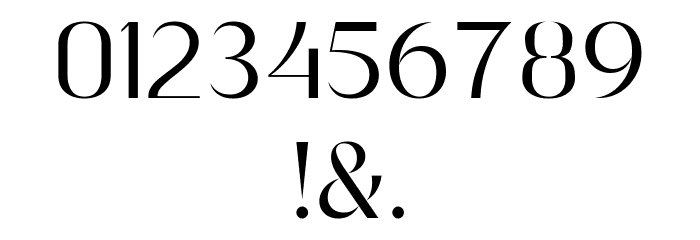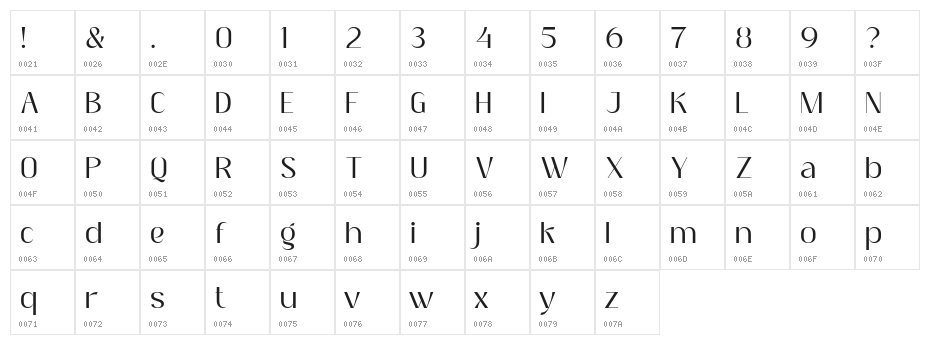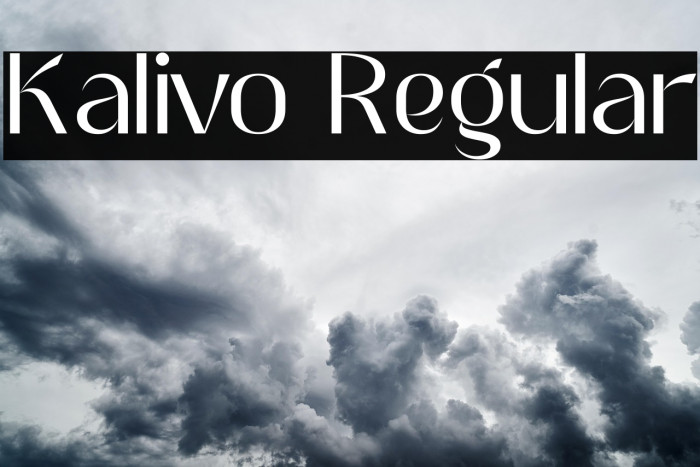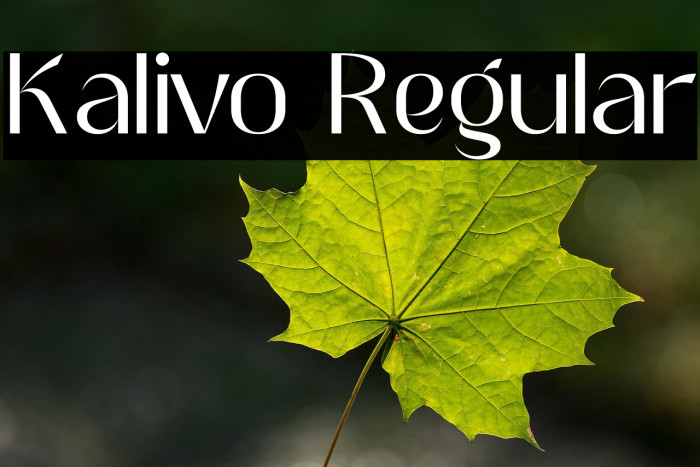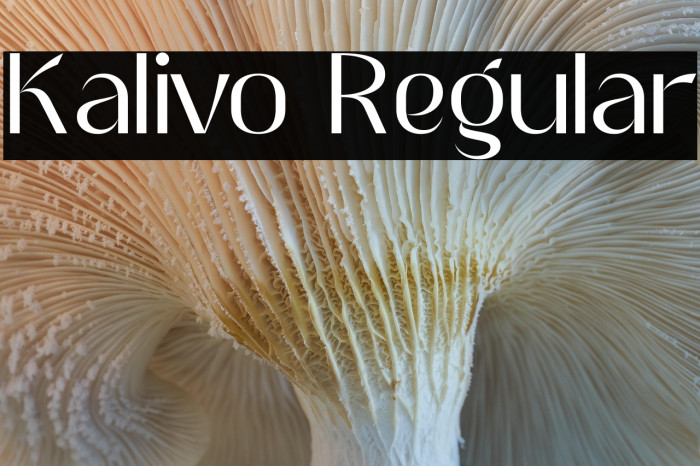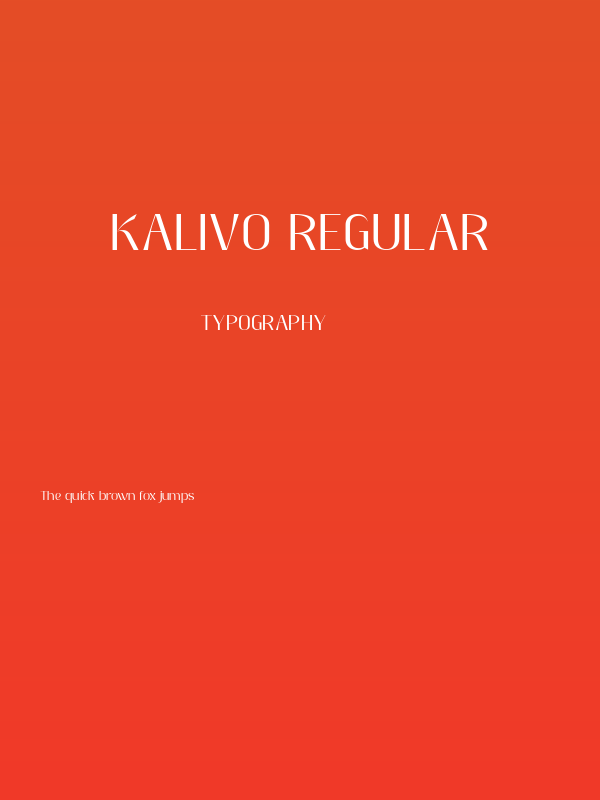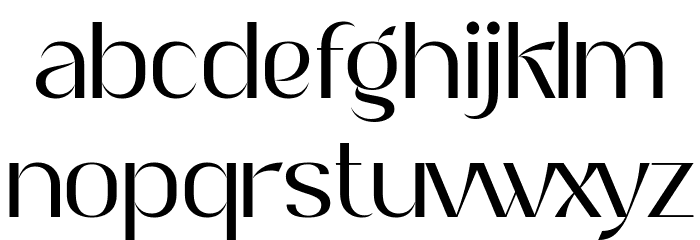
Kalivo Regular Font
Kalivo Regular Description
This font features a modern and sleek design with a distinctive geometric style. The uppercase letters are bold and angular, with sharp edges and clean lines that create a sense of precision and sophistication. The lowercase letters maintain a similar geometric aesthetic, offering a harmonious balance between curves and straight lines. The numerals are consistent with the overall design, providing clarity and readability. Special characters are elegantly integrated, adding to the font's versatility. This font's unique style makes it suitable for a variety of design projects.